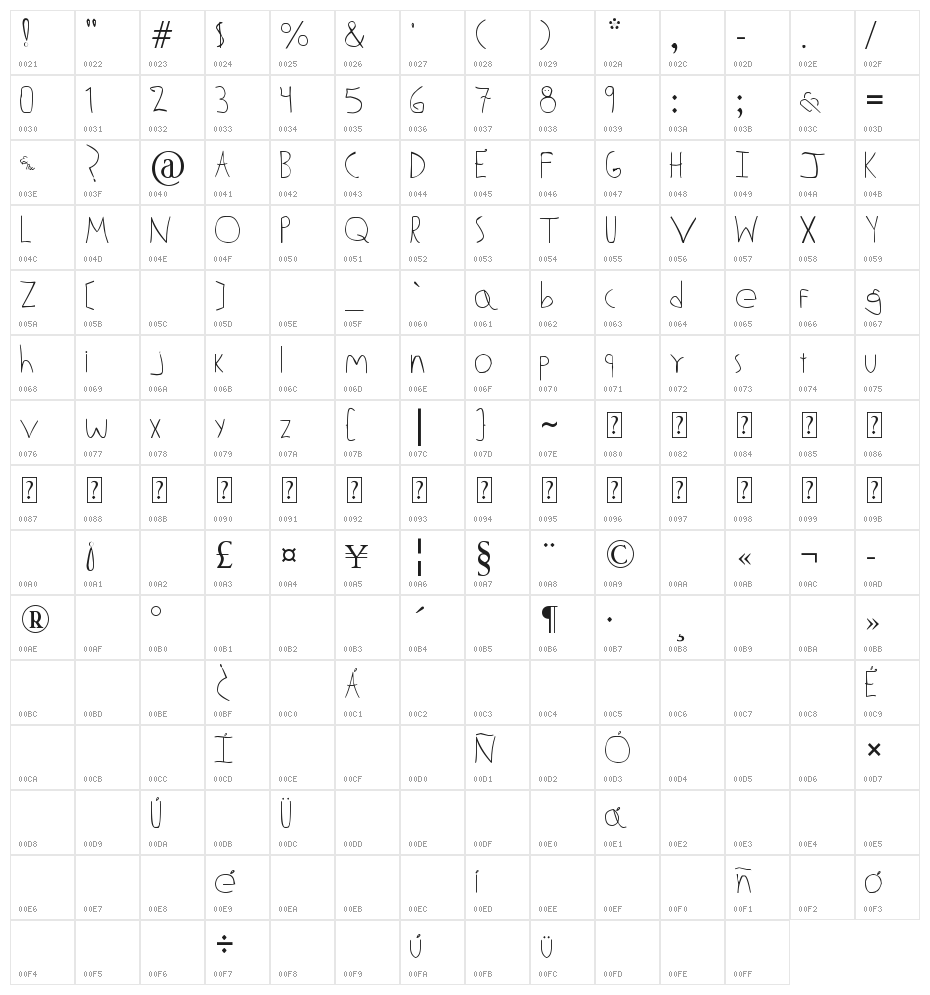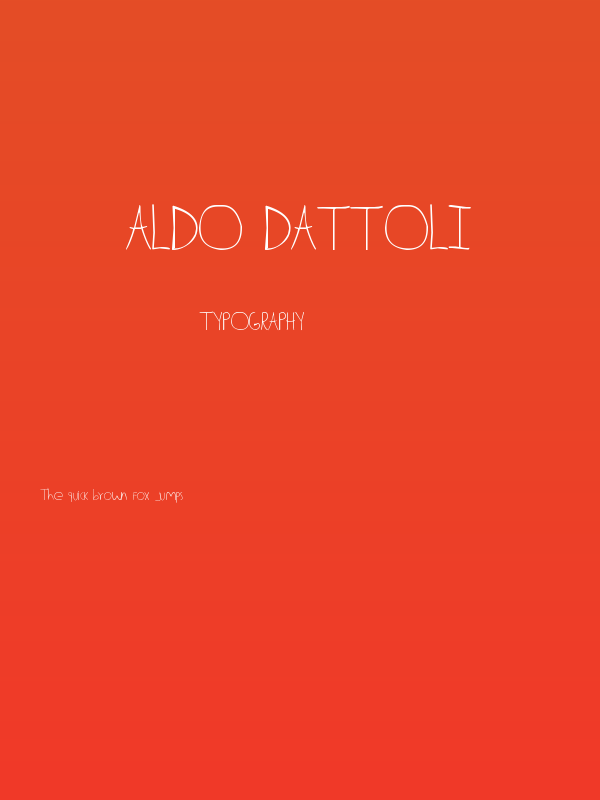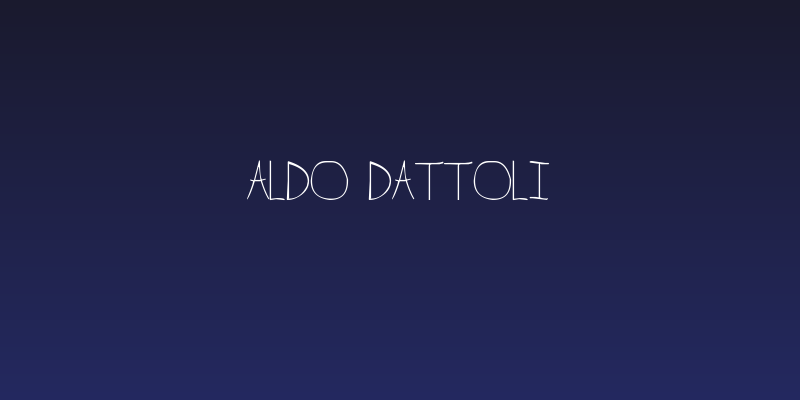
Aldo Dattoli Font
Aldo Dattoli Description
This font features a playful and whimsical design, characterized by its irregular and hand-drawn appearance. The letters have a casual, almost childlike quality, with varying stroke widths that add to its charm. The uppercase and lowercase letters maintain a consistent style, with rounded edges and a slightly uneven baseline, giving it a unique and approachable look. The numerals and special characters follow the same style, ensuring a cohesive appearance across all elements. This font is ideal for projects that require a fun and informal touch, such as children's books, playful branding, or creative invitations.
| Overall Style | Whimsical |
| Proposed Projects | Children's books, playful branding, creative invitations, casual posters. |